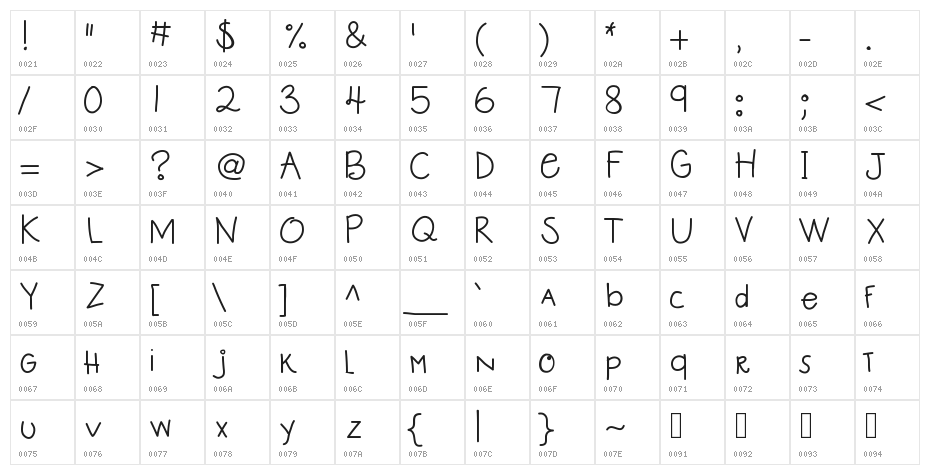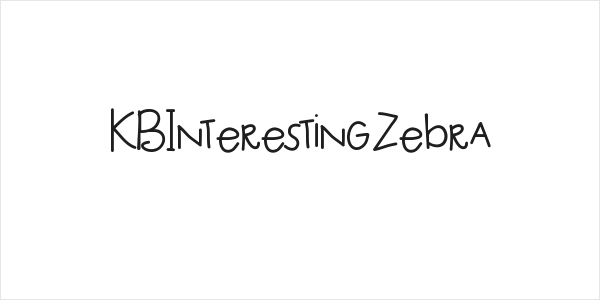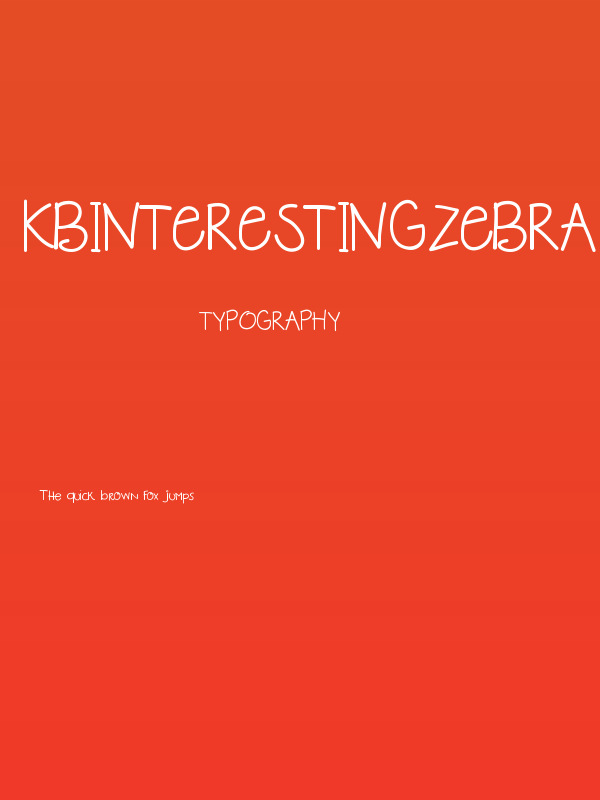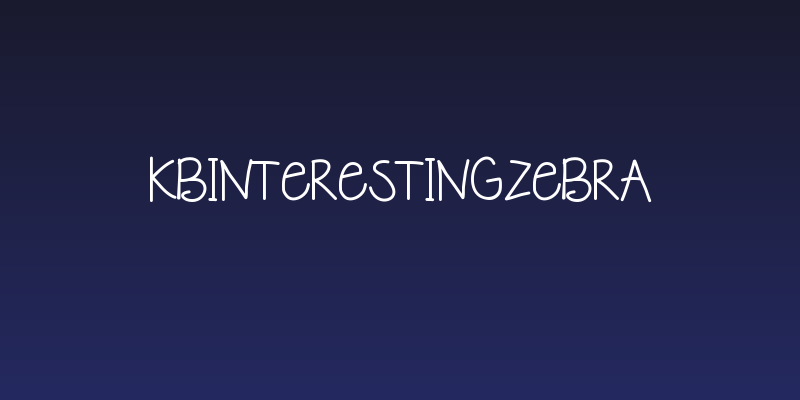
KBInterestingZebra Font
KBInterestingZebra Description
This playful and whimsical font features a handwritten style with a casual, friendly appearance. The characters are slightly irregular, adding a touch of personality and charm. The strokes are consistent in thickness, giving it a uniform look while maintaining a lively feel. The uppercase and lowercase letters are well-balanced, with rounded edges that soften the overall appearance. The numerals and special characters complement the alphabet, maintaining the same playful aesthetic. This font is perfect for projects that require a personal touch or a fun, informal vibe.
| Proposed Projects | Ideal for children's books, greeting cards, playful branding, and informal invitations. |